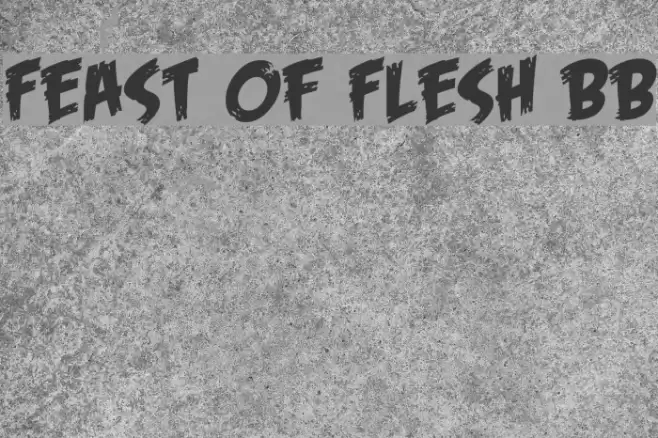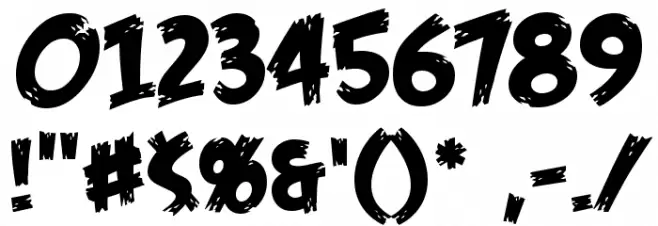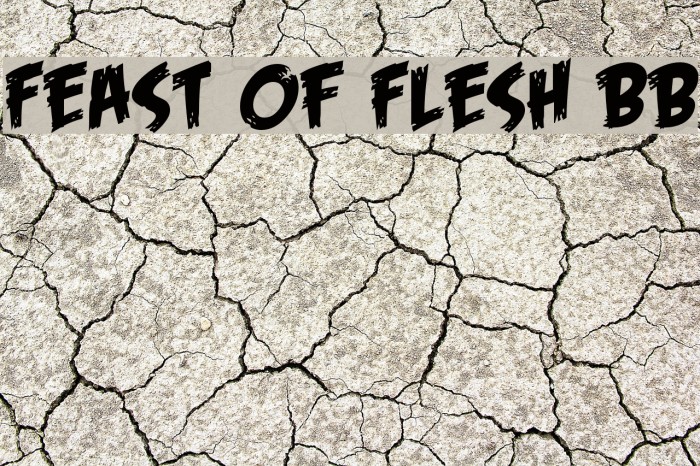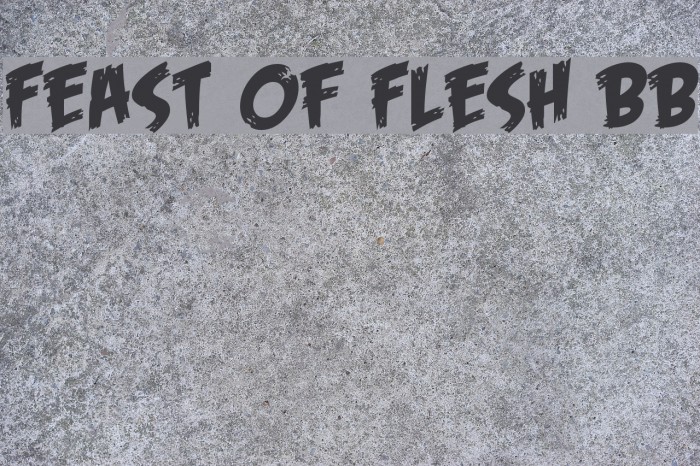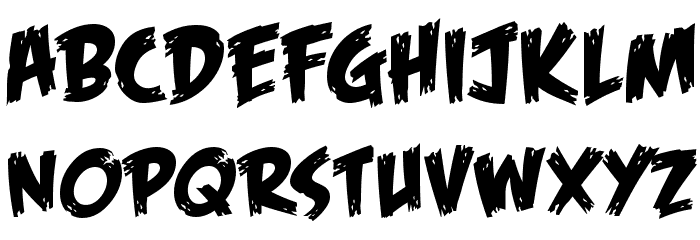
Feast of Flesh BB Font
Feast of Flesh BB Description
This font features a bold and aggressive style with jagged, brush-like strokes that give it a raw and edgy appearance. The characters are heavily stylized, with uneven edges and a dynamic, energetic feel. This font is designed to capture attention and convey a sense of urgency or intensity. The uppercase and lowercase letters maintain a consistent theme, with numbers and special characters following the same rugged design. The overall look is chaotic yet controlled, making it suitable for projects that require a strong visual impact.
A bold, jagged font with an aggressive, brush-like style from Uncategorized fonts.
- Proposed Projects: Ideal for horror-themed posters, edgy branding, video game titles, and Halloween event promotions.